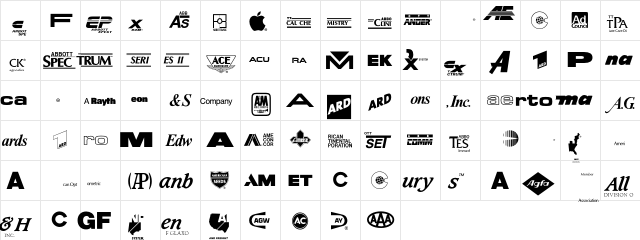
LogosCompany P01
Design Context for LogosCompany Typeface
LogosCompany offers clean, dependable letterforms without strong stylistic allegiance, making it a practical choice for designers who need flexibility.
Pro Tip: Use LogosCompany in both headline and body roles to test its range before committing to a single application.